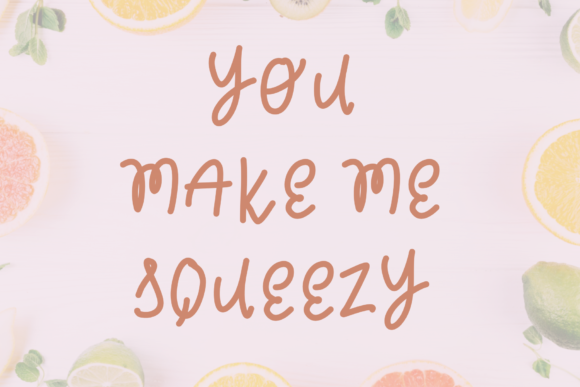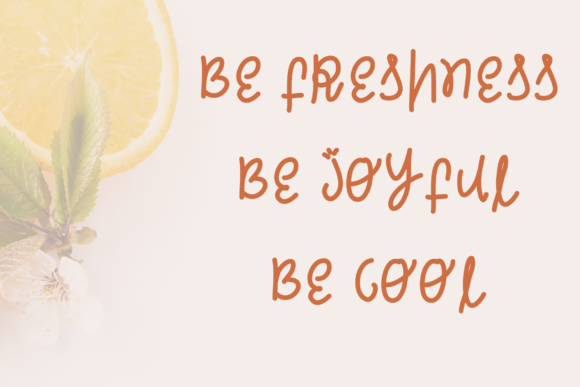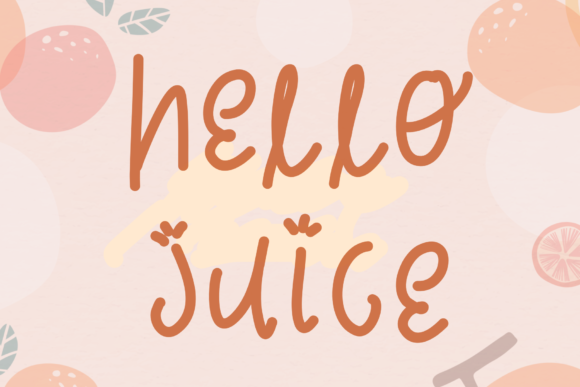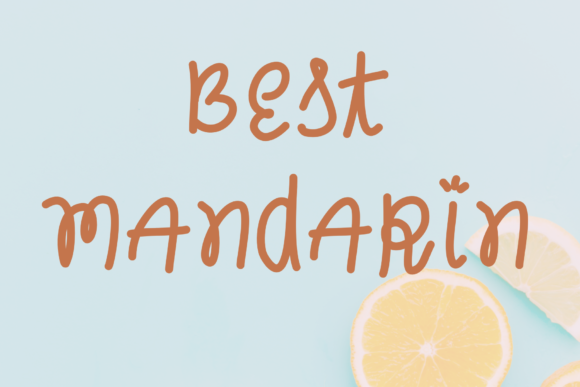
Orange Juicy Font
About Orange Juicy Font
Orange Juicy is a fun and playful handwritten font. Cute and unique, this font will brighten up each of your school or kids project!